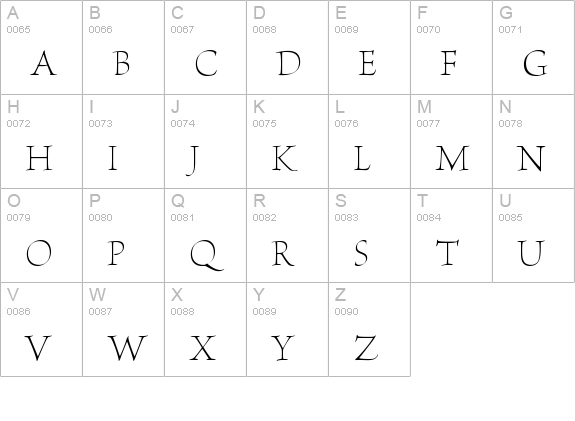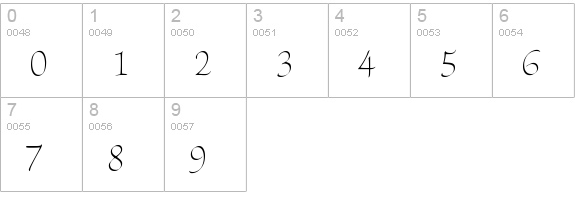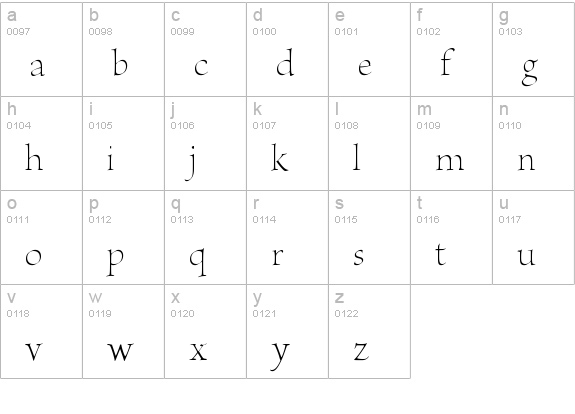
Brioso Pro Light Display Font Details
Brioso Pro Light Display is a refined, elegant variant in the Brioso typeface family \xE2\x80\x94 well suited to elegant body text, refined sub-headings, and luxury branding.
Brioso Pro Light Display font is a modern and elegant typeface designed to bring a sophisticated touch to your design projects. Its sleek lines and graceful curves make it perfect for creating eye-catching headlines and titles that demand attention. The light weight of this font adds a delicate and refined feel to any piece of text, making it ideal for use in branding, advertising, and editorial design. The best part is that Brioso Pro Light Display font is available for free download at FontsMarket.com. This means you can easily access and use this high-quality font in your projects without any cost. Whether you're a professional designer looking for a new typeface to elevate your work, or a hobbyist wanting to experiment with different fonts, Brioso Pro Light Display font is a versatile and stylish choice that won't break the bank. Download it today and add a touch of sophistication to your designs!